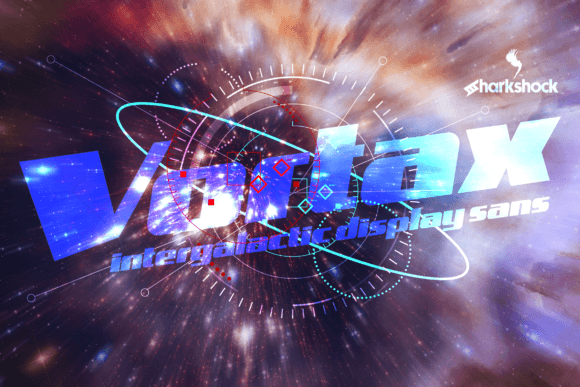
Introducing Vortax Font, a Futuristic Masterpiece for Captivating Designs
In the vast digital landscape where competition rages for attention, your designs must stand out like a beacon in the night. Vortax Font, an avant-garde creation by Sharkshock, empowers you to unleash your creativity and forge unforgettable visual experiences.
A testament to the harmony of negative space, Vortax captivates with its bold strokes and meticulously crafted spacing. Its imposing capitals command attention, while the sharp slants of its Italic counterpart add a touch of intrigue.
Vortax's unique character set is a symphony of contrasts. Exterior curves dance alongside sharp interior angles, creating a dynamic tension that instantly captivates the eye. This masterful interplay makes it an ideal choice for a myriad of applications, from video game and app design to toy packaging and sports logos.
Imagine the impact of Vortax on your video game's enigmatic title screen, where its space-age aesthetics transport players into a hyper-futuristic realm. Its sharp lines and bold presence will make your toy packaging leap off the shelves, promising endless hours of imaginative play. And for sports logos, Vortax's powerful energy will ignite a fiery spirit of competition and sportsmanship.
But Vortax is more than just a font; it's a gateway to creative freedom. Its ability to effortlessly cover horizontal blocks makes it the perfect choice for crafting captivating headlines, eye-catching posters, and immersive web designs.
Whether you're a seasoned graphic artist or just starting your design journey, Vortax empowers you to unlock your imagination and create designs that resonate with your audience. Its versatility knows no bounds, making it a must-have for any creative arsenal.